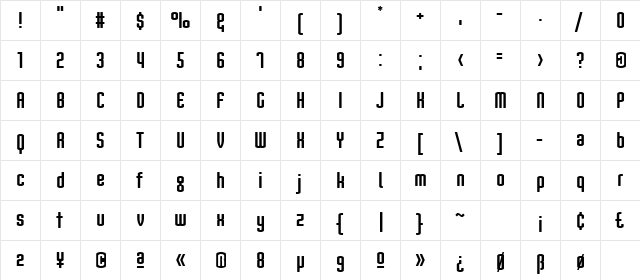
Nord Bold
Design Context for Nord Typeface
Nord takes a measured approach to typography — its balanced proportions and neutral character make it a reliable workhorse for both digital and print work. Its bold stroke weight gives it real presence on the page.